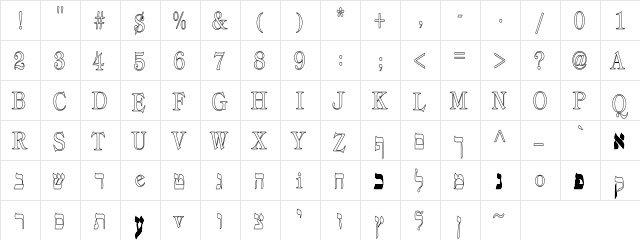
Eretz Regular
Design Context for Eretz Typeface
Eretz is a composed and adaptable typeface that performs quietly and consistently across a wide range of design contexts.